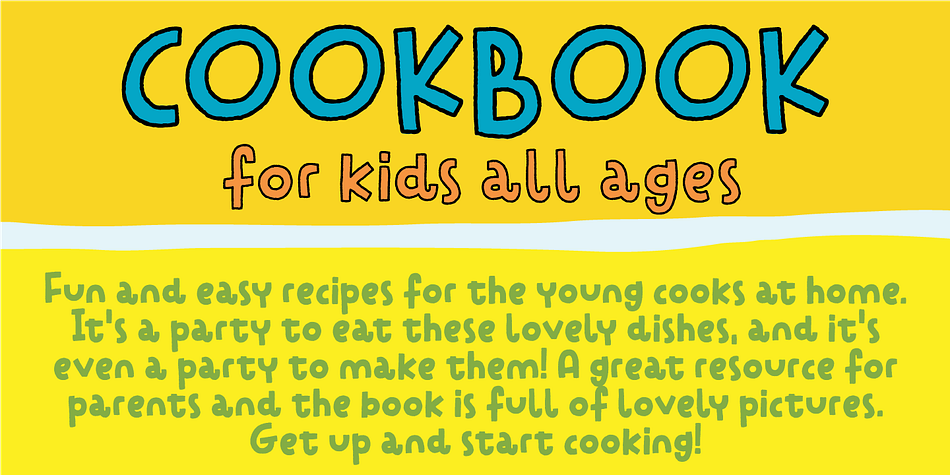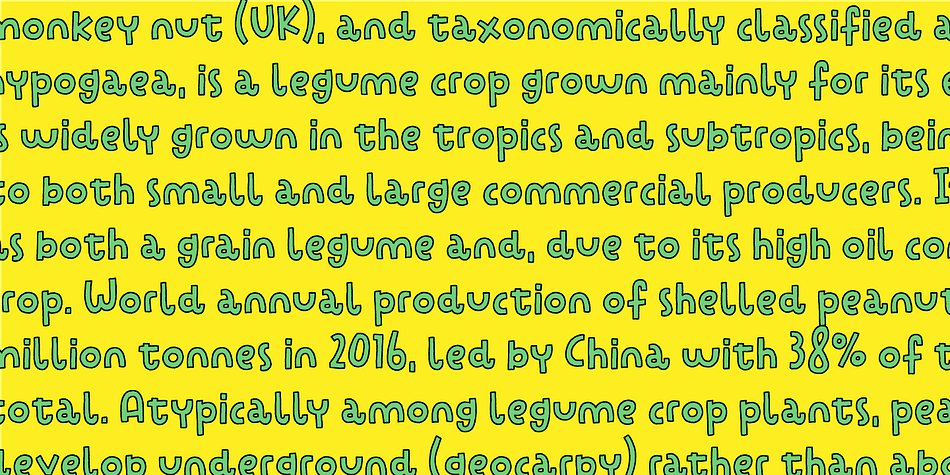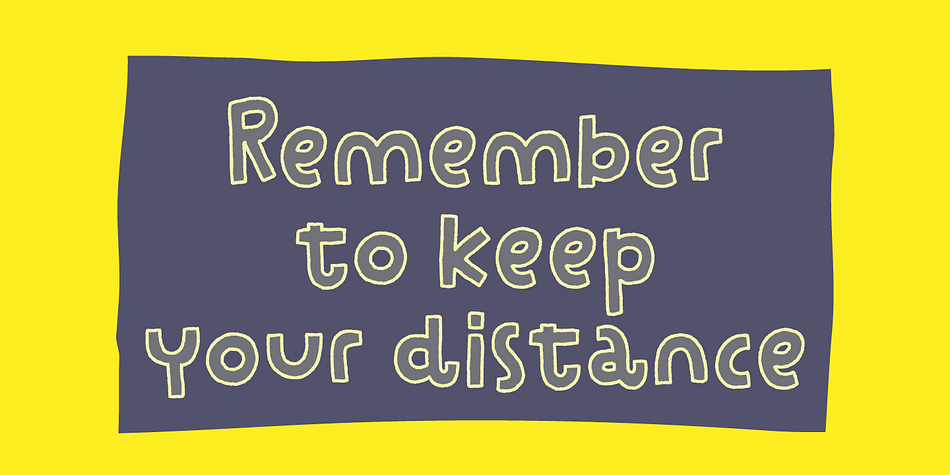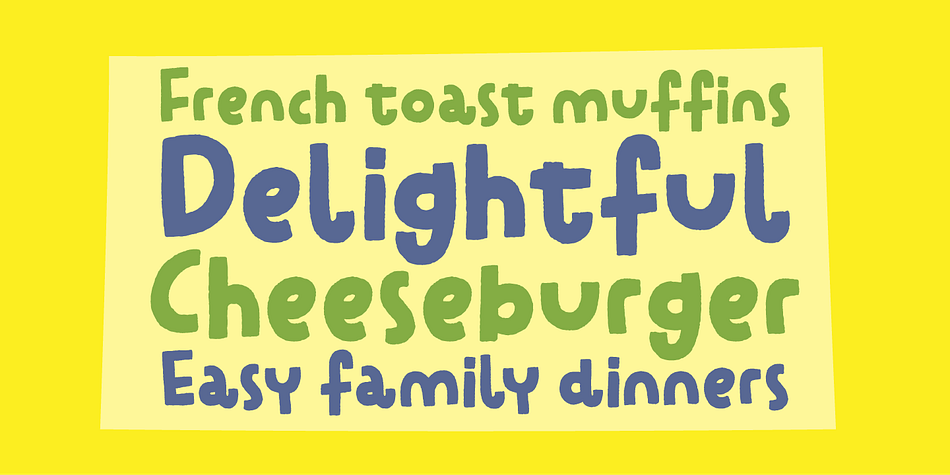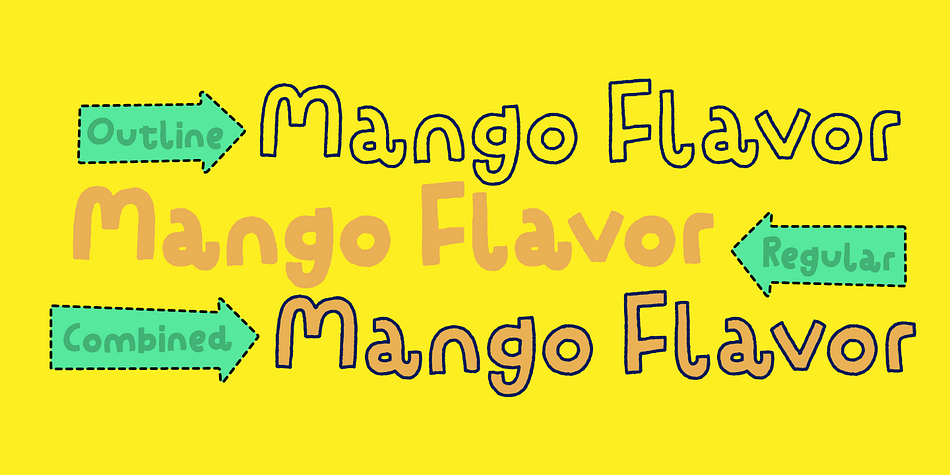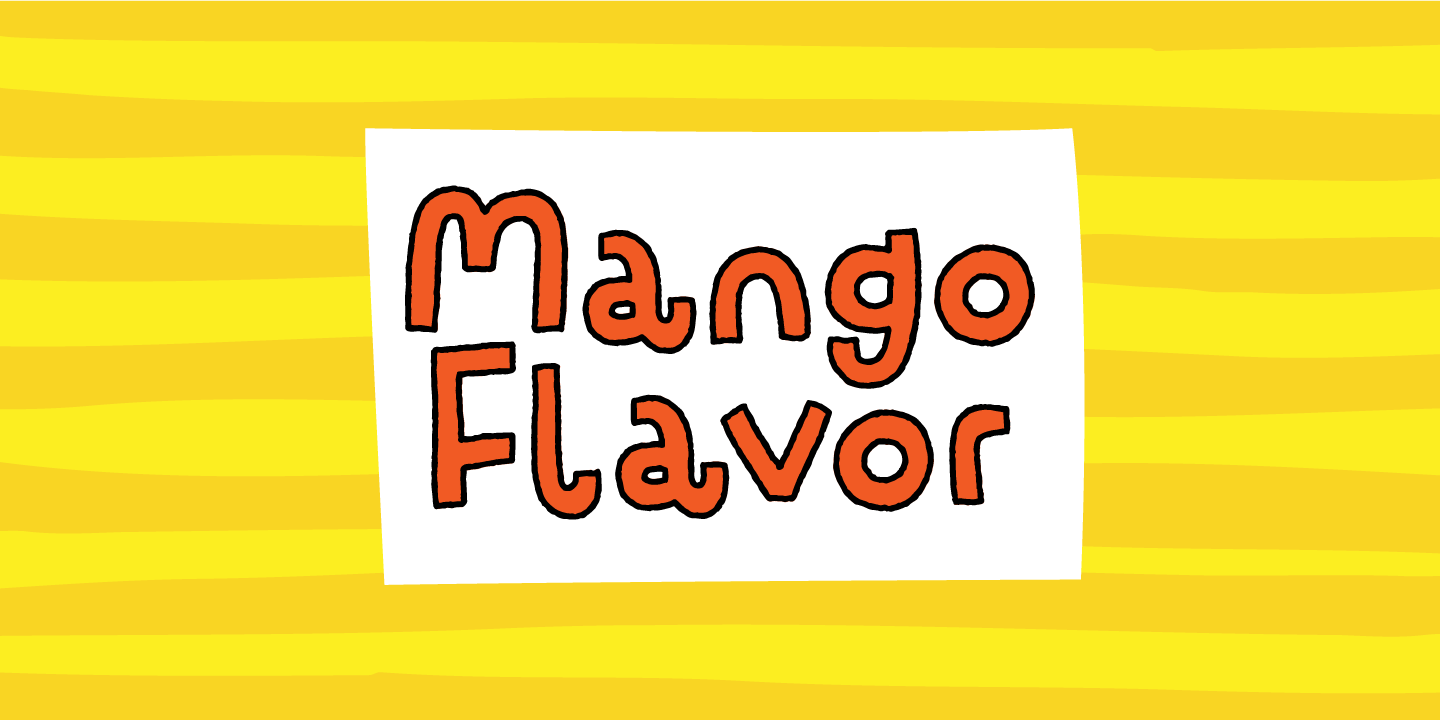
Designed by Jakob Fischer, Mango Flavor is a hand display, hand drawn and kids font family. This typeface has two styles and was published by Pizzadude.dk.
Mango Flavor is my super cool comic-ish font with a taste of ... you may have guessed it…Mango! :)
It’s playful and jumpy and wants to be a part of the action!